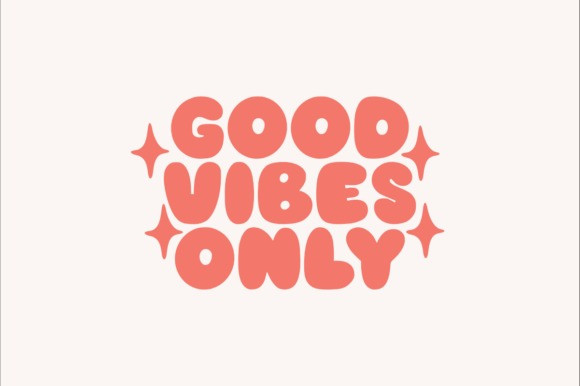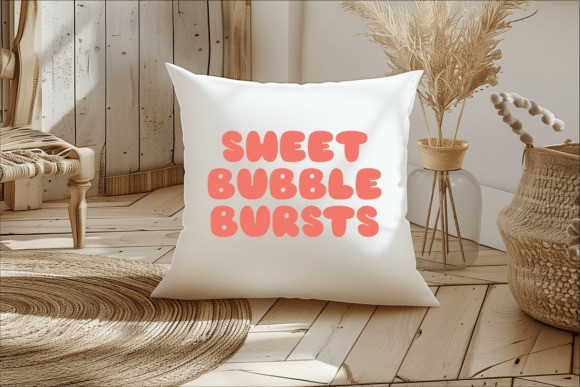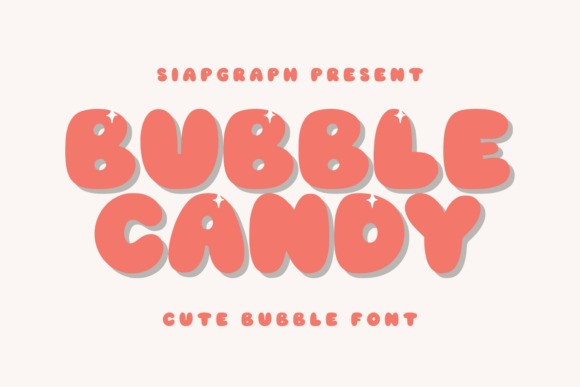
Bubble Candy Font
Bubble Candy is a delightfully plump and cheerful bubble font that brings a sense of fun and lightheartedness to any design. Its rounded, inflated letterforms with subtle shadowing create a playful three-dimensional effect, making your text pop with personality. This font is perfect for adding a touch of joy and whimsy to a wide array of creative projects.
Envision Bubble Candy enhancing vibrant stickers, playful planner layouts, eye-catching t-shirt graphics, sweet product labels, charming invitations, personalized tumblers, and countless other engaging crafts. Its friendly and approachable aesthetic makes it exceptionally suitable for products aimed at end-users who enjoy crafting with tools like Cricut and for sublimation projects, as well as for creating appealing stickers and planner elements. Bubble Candy’s unique and bubbly character will ensure your creations stand out and bring a smile to everyone who encounters them